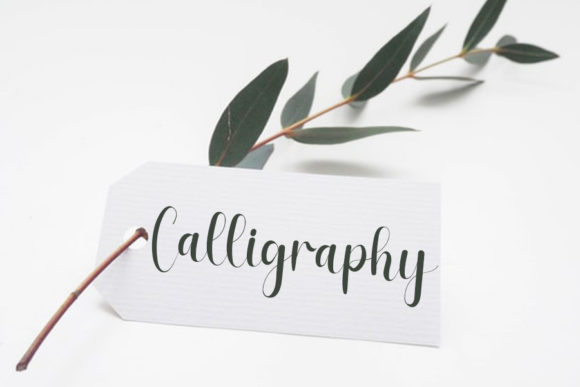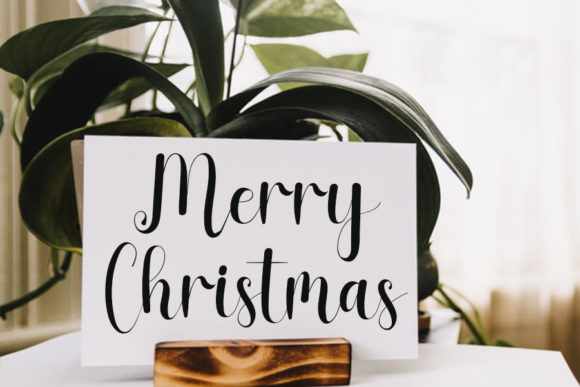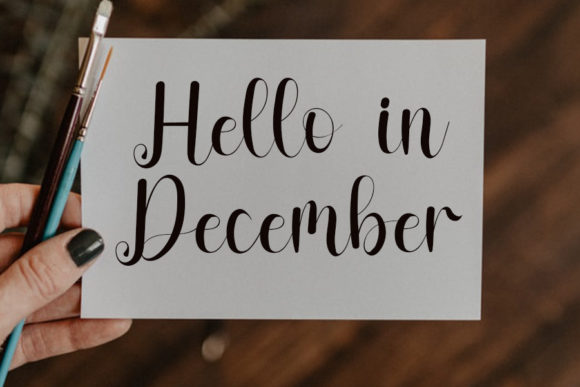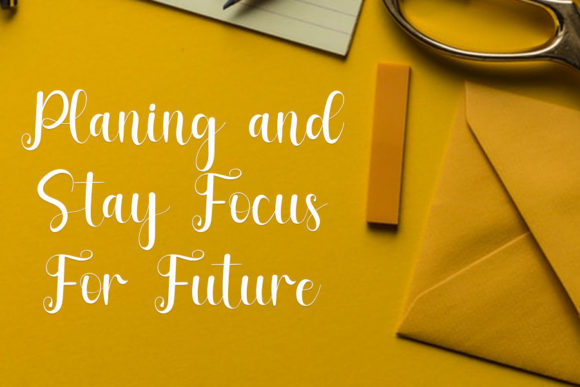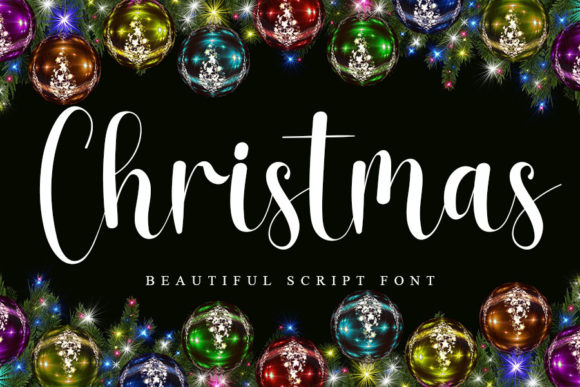
Introducing Christmas Font: The Perfect Blend of Classy and Contemporary
Are you looking for a font that captures the essence of the holiday season? Do you want to add a touch of elegance and sophistication to your designs? Look no further than Christmas Font, a beautiful casual handwritten font that’s sure to become your new favorite. In this article, we’ll take a closer look at what makes Christmas Font so special and how you can use it to take your projects to the next level.
The Inspiration Behind Christmas Font
Christmas Font is a carefully crafted font that draws inspiration from traditional calligraphy. Its designers wanted to create a font that would evoke the feeling of a handwritten note, while still maintaining a level of sophistication and elegance. The result is a font that’s both classy and contemporary, perfect for a wide range of design projects.
What Makes Christmas Font So Special?
So, what sets Christmas Font apart from other fonts on the market? Here are just a few of its standout features:
- Handwritten feel: Christmas Font has a warm, handwritten feel that’s perfect for creating a personal touch in your designs.
- Classy calligraphic influences: The font’s calligraphic influences give it a level of sophistication and elegance that’s hard to find in other handwritten fonts.
- Contemporary and fresh: Despite its classic influences, Christmas Font feels modern and fresh, making it perfect for designers who want to create something new and exciting.
Uses for Christmas Font
Christmas Font is a versatile font that can be used for a wide range of design projects. Here are just a few ideas to get you started:
- Holiday cards and invitations: Use Christmas Font to create beautiful holiday cards and invitations that will make your loved ones feel special.
- Branding and packaging: Add a touch of elegance to your branding and packaging with Christmas Font.
- Social media graphics: Use Christmas Font to create eye-catching social media graphics that will help your business stand out.
- Crafting and DIY projects: Christmas Font is perfect for crafters and DIY enthusiasts who want to add a personal touch to their projects.
Tips for Using Christmas Font
Here are a few tips for getting the most out of Christmas Font:
- Use it sparingly: While Christmas Font is beautiful, it can be overwhelming if used too much. Use it sparingly to create a sense of elegance and sophistication.
- Pair it with other fonts: Christmas Font pairs well with other fonts, especially sans-serif fonts. Experiment with different pairings to find the one that works best for your project.
- Experiment with colors: Christmas Font looks beautiful in a variety of colors, from traditional red and green to more modern metallic colors.
Christmas Font is a beautiful and versatile font that’s perfect for designers and crafters who want to add a touch of elegance and sophistication to their projects. With its handwritten feel, classy calligraphic influences, and contemporary freshness, it’s sure to become a favorite in your design arsenal. So why wait? Download Christmas Font today and start creating stunning designs that will leave a lasting impression.